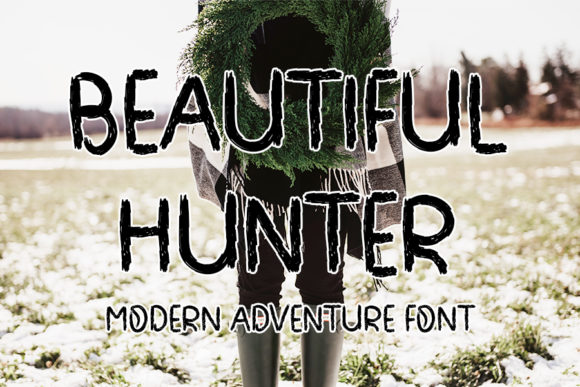
**Introducing Beautiful Hunter: The Enchanting Font That Captivates**
Behold, the Beautiful Hunter font, a mesmerizing display typeface that weaves a spell of wonder upon your creations. Its bold, spooky, and chunky letters cast an ethereal glow, inviting you to unleash your imagination and let your words dance with undeniable allure.
Immerse yourself in the enchanting world of Beautiful Hunter, where every letter is a work of art. Its unique and captivating style transports your audience to a realm of mystery and intrigue, captivating their senses and leaving them spellbound.
Whether you're crafting a haunting Christmas card, designing a spine-tingling book cover, or conjuring up an enchanting logo, Beautiful Hunter will infuse your creations with an otherworldly charm. Its versatility knows no bounds, empowering you to evoke emotions and stir the soul with every stroke.
Step into the realm of enchantment, where Beautiful Hunter awaits to guide your creative journey. Embrace its alluring spirit and watch as your designs transcend the ordinary, becoming captivating masterpieces that leave an indelible mark on all who behold them.
**Why Beautiful Hunter Font Will Cast a Spell on Your Creations:**
* Its bold and chunky letters command attention, creating an unforgettable impact
* The spooky undertones add an enchanting mystery that draws readers in
* Its versatility empowers you to create a wide range of designs, from eerie to whimsical
* The font's unique style sets your designs apart, making them truly special
* It's perfect for Christmas cards, book covers, logos, and more, adding a touch of magic to any project